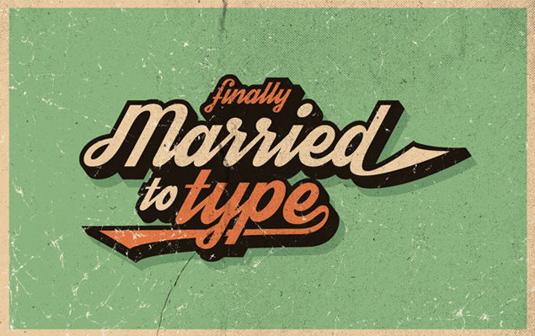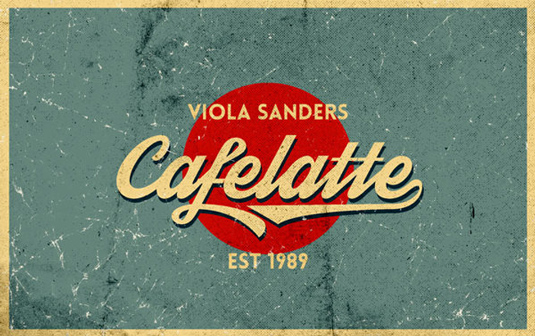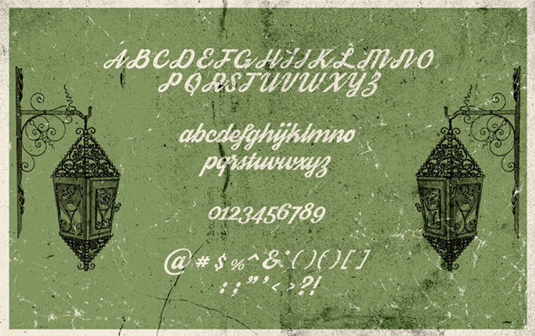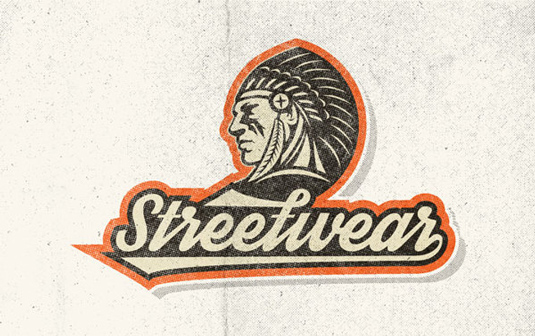
Font of the day: Streetwear
Streetwear from Artimasa
A bold and stylish retro-inspired script font, Streetwear is suitable for logos, posters, branding, packaging and much more. Available from Artimasa, the team comments on Behance: "Streetwear looks like 1960s and 70s fashion and sport-related typeface, unique and fun at the same time."